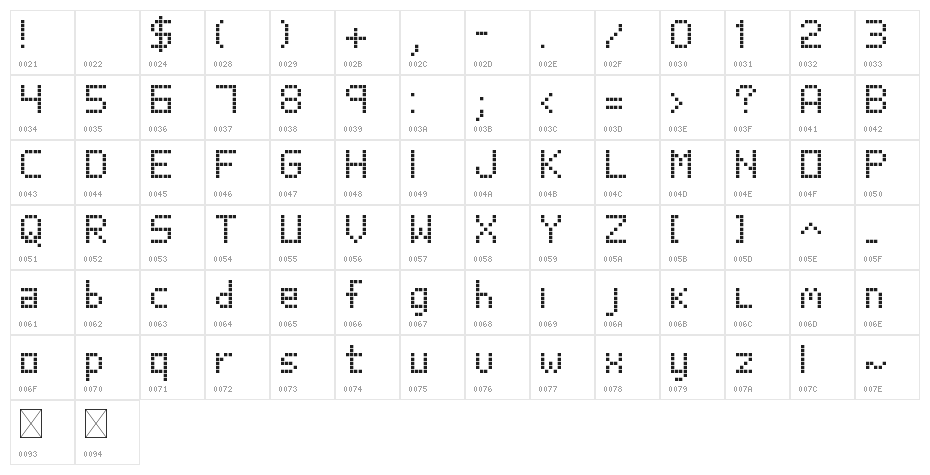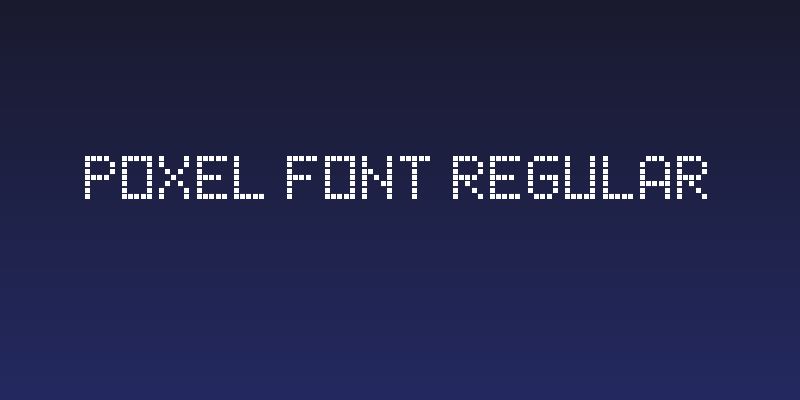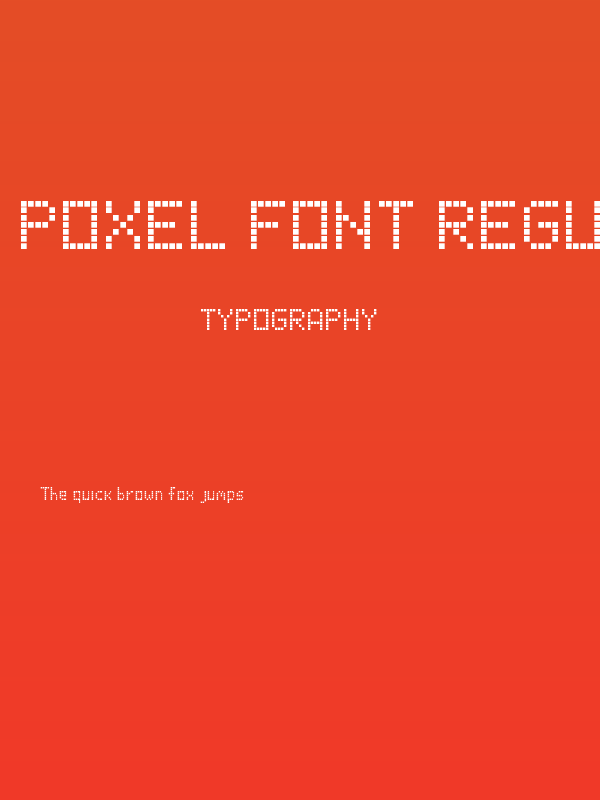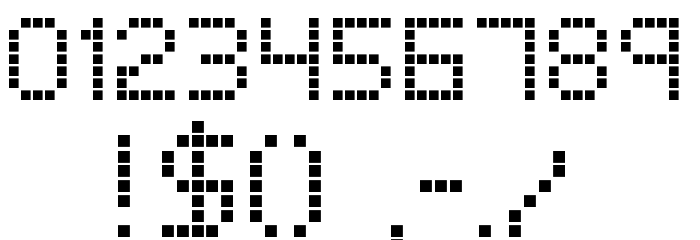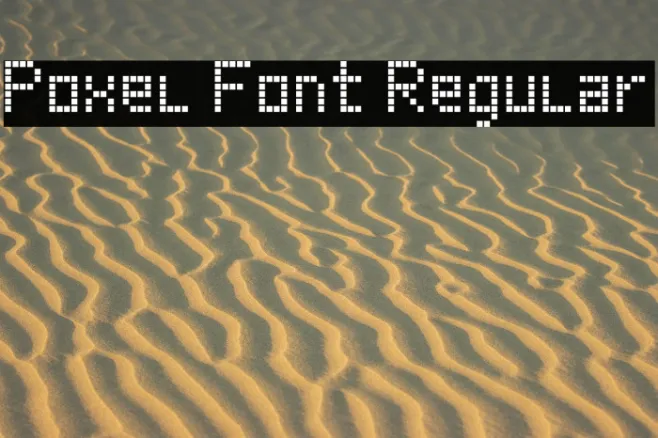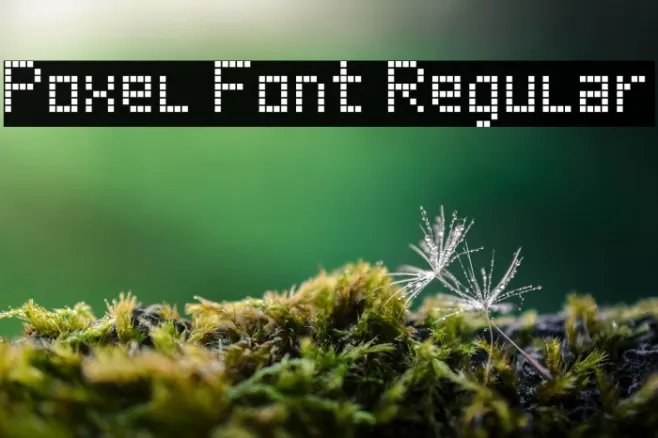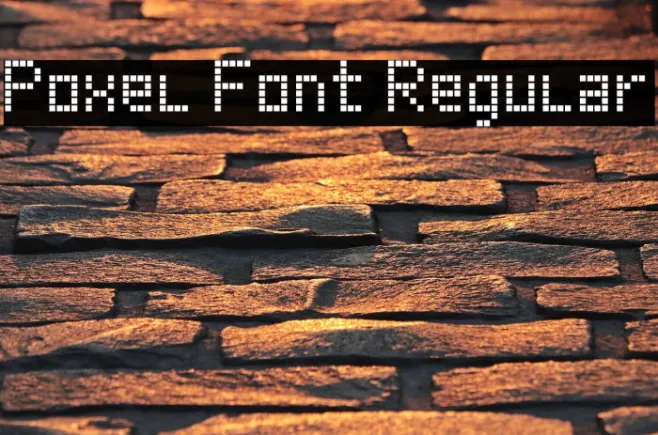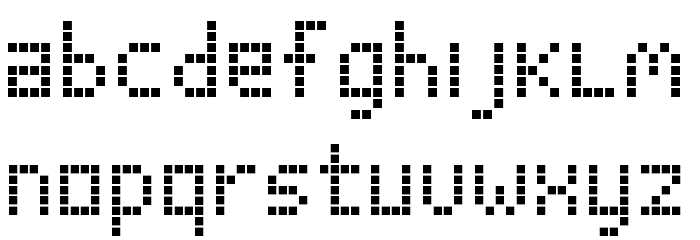
Poxel Font Regular Font
Poxel Font Regular Description
This font features a distinctive pixelated design, reminiscent of early digital displays and retro video games. Each character is constructed from a grid of small squares, creating a blocky and geometric appearance. The uniformity of the squares gives the font a monospaced feel, although it is not strictly monospaced. The uppercase and lowercase letters maintain a consistent height and width, contributing to a cohesive and structured look. Numbers and special characters are also designed with the same pixelated style, ensuring visual harmony across all glyphs. This font is ideal for projects that aim to evoke nostalgia or a digital aesthetic.
| Proposed Projects | Ideal for retro video game graphics, digital art projects, tech-themed posters, and any design requiring a nostalgic or digital aesthetic. |